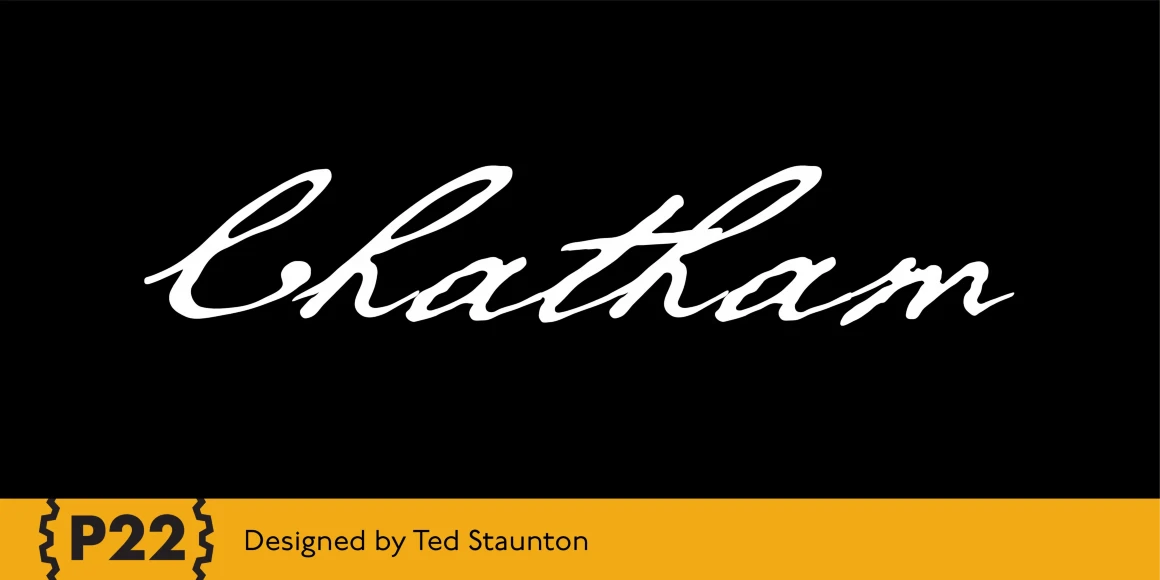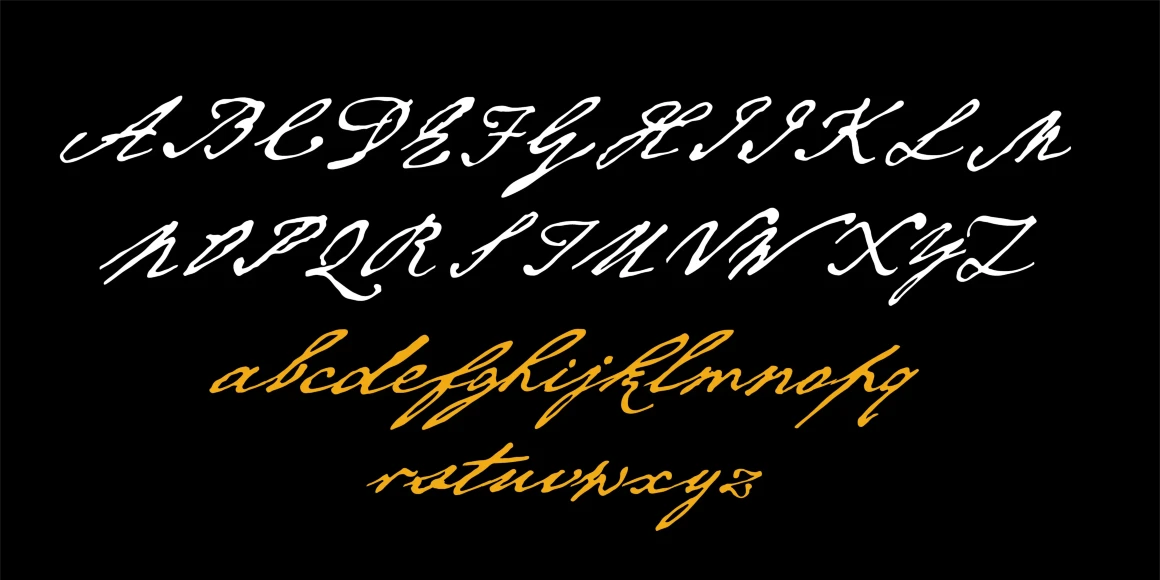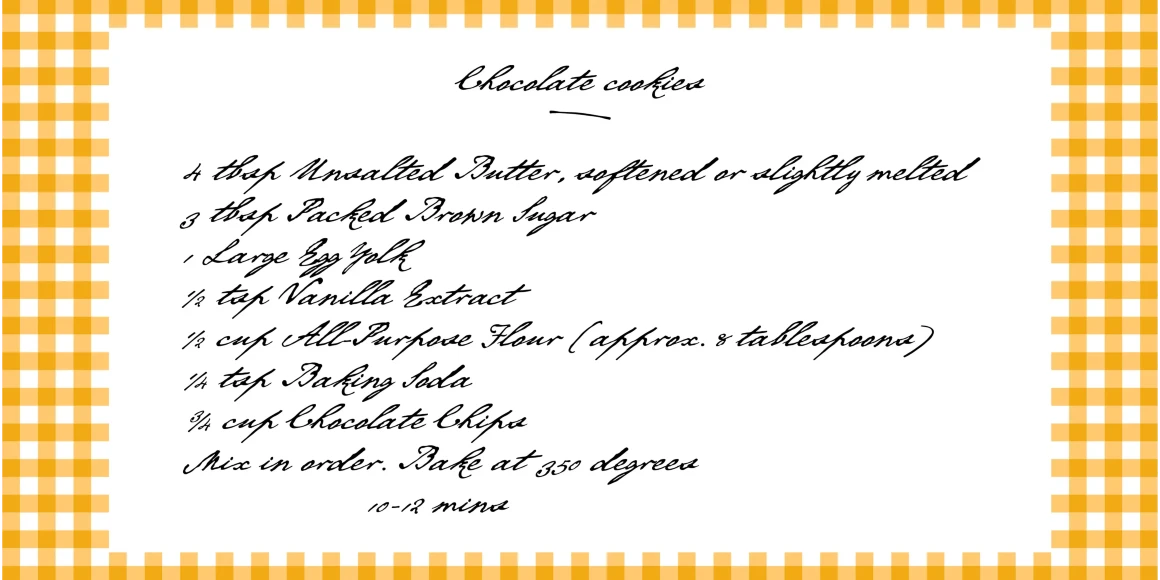
Chatham
Chatham designed by Ted Staunton for his historic novel centered around a family bible and the handwritten annotation through 7 generations. The Chatham font is overtly crooked and has an extreme right-leaning slant — perhaps we should call it “Cheney.”
Designed by Ted Staunton